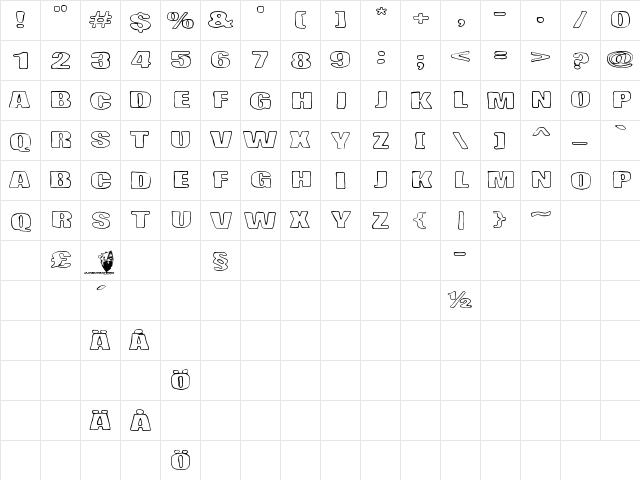
Lasihiekka Regular
Design Context for Lasihiekka Typeface
Lasihiekka offers clean, dependable letterforms without strong stylistic allegiance, making it a practical choice for designers who need flexibility.